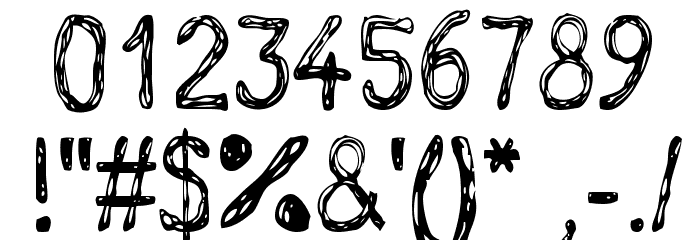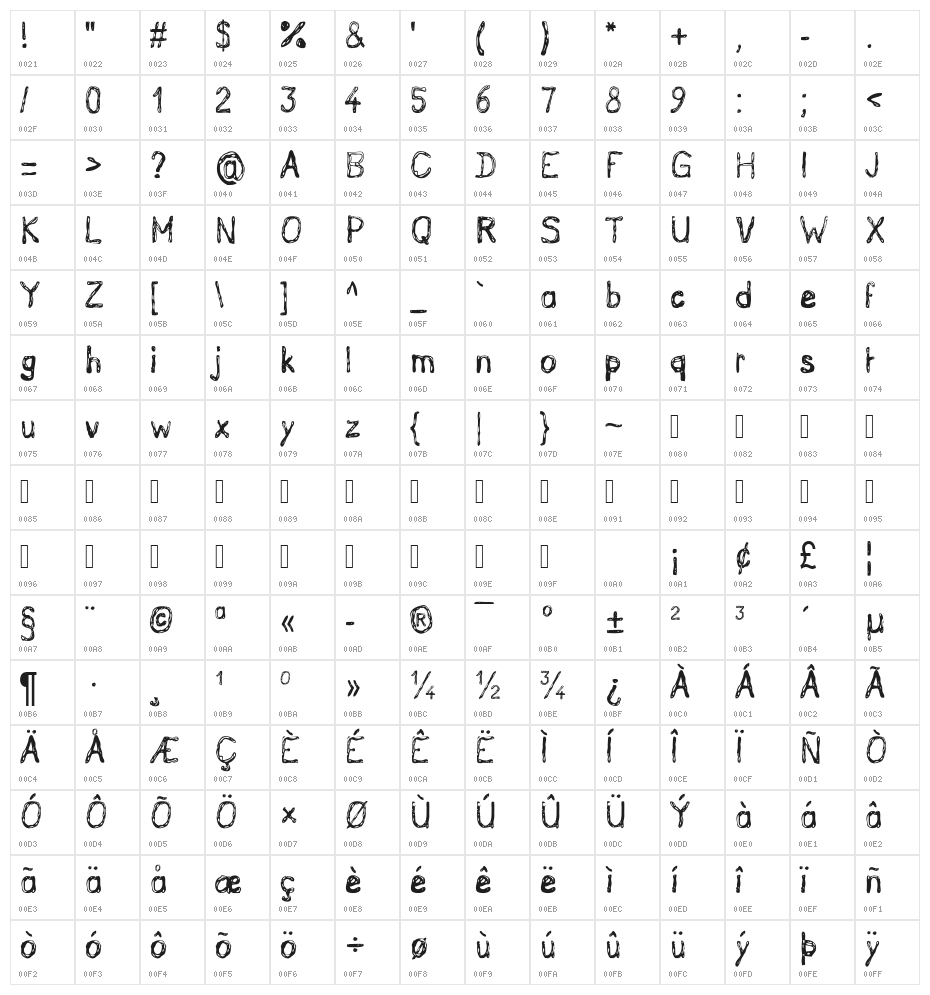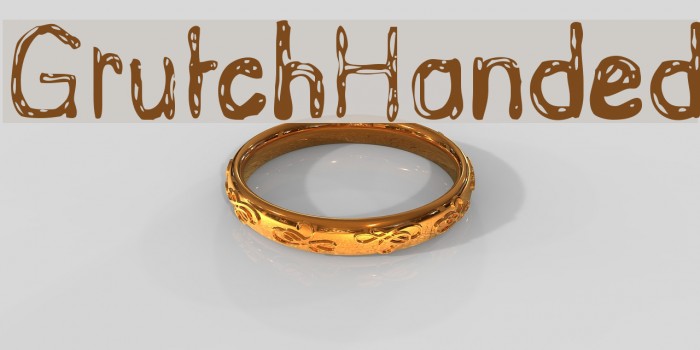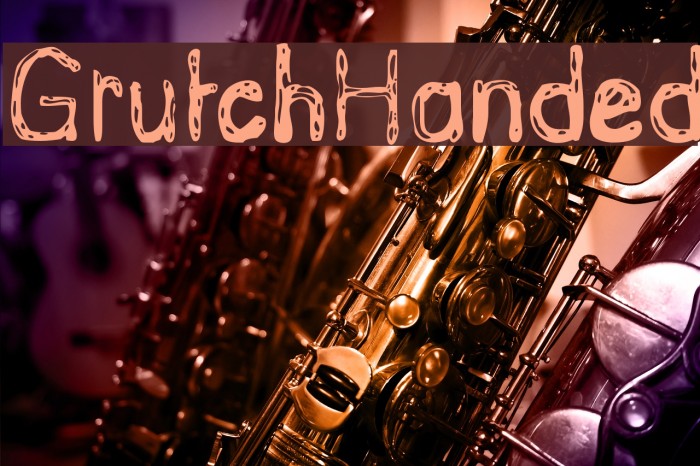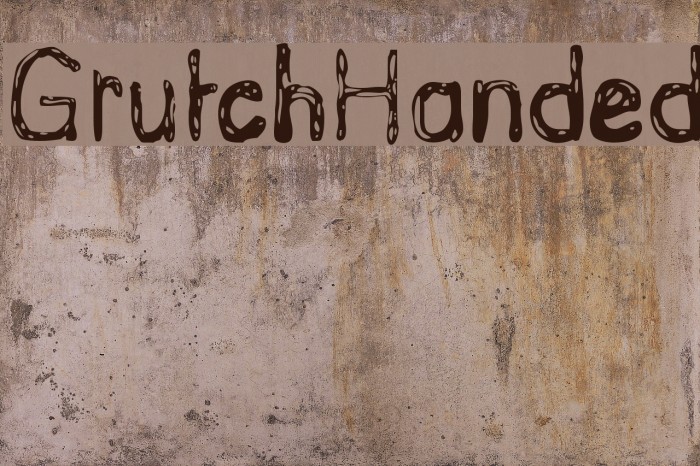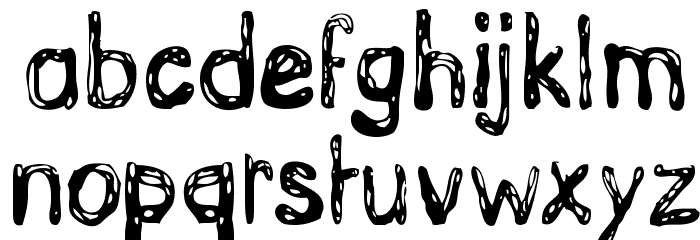
GrutchHanded Font
GrutchHanded Description
This font features a unique, hand-drawn style with a playful and slightly chaotic appearance. The characters are irregular and organic, with a wavy, fluid form that gives them a dynamic and lively feel. The uppercase and lowercase letters maintain a consistent style, with each character appearing as if it has been drawn with a thick marker or brush. The numbers and special characters follow the same aesthetic, ensuring a cohesive look across all elements. This font's distinctive style makes it stand out, offering a creative and artistic vibe.
| Use Case | Logos, Posters, Creative projects |
| Proposed Projects | Ideal for creative projects such as children's books, artistic posters, or branding for playful and innovative products. |